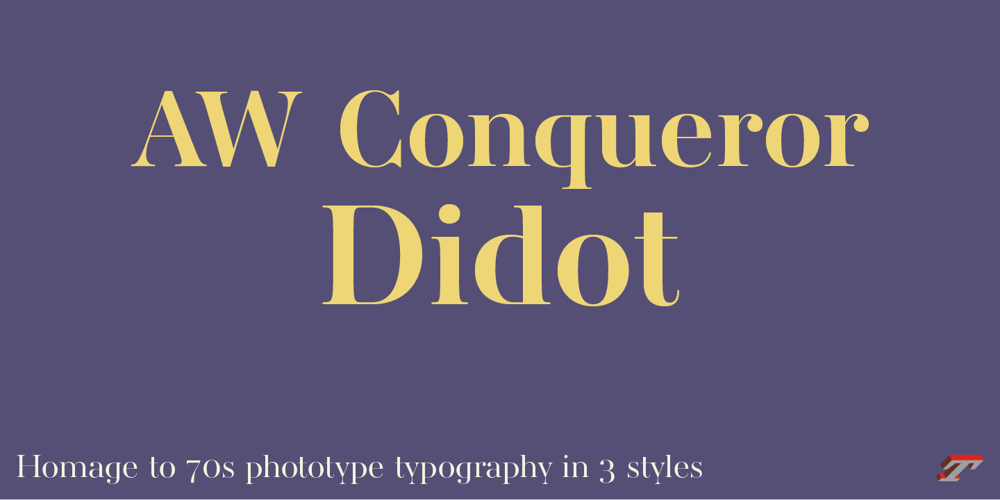
AW Conqueror Std Didot
AW Conqueror Std Didot Font Family was designed by Jean François Porchez and published by Typofonderie. AW Conqueror Std Didot contains 3 styles and family package options. Homage to 70s phototype typography in 3 stylesThe AW Conqueror typeface family is a nod to the spirit of phototype typefaces and transfer lettering from the early 70’s. Founded by Ed Rondthaler, Photo-lettering catalogs swarmed with more daring typefaces than the others. Both transfer letter and phototitling have liberated the principle of letter-to-letter spacing, previously impossible with metal type. Phototype allowed operators to position millimeters, on the fly, letter after letter: words, sentences according to the specifications of the art director.AW Conqueror superfamilyAW Conqueror Didot is part of a larger family, who include 4 others subfamilies with great potential: They’re but based on same structure, with some connection between them (width for example), to offer a great & easy titling toolbox to any designers, from skilful to beginner. Each of the members try their best to be different from the others because of their features. They should work harmoniously in contrast.Club des directeurs artistiques Prix 2010European Design Awards 2011